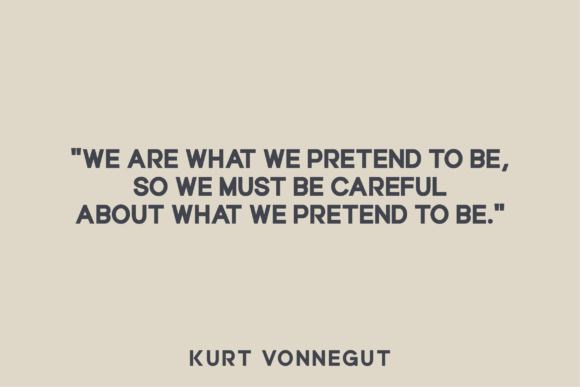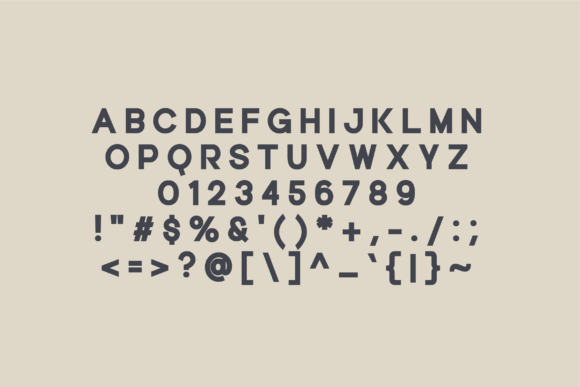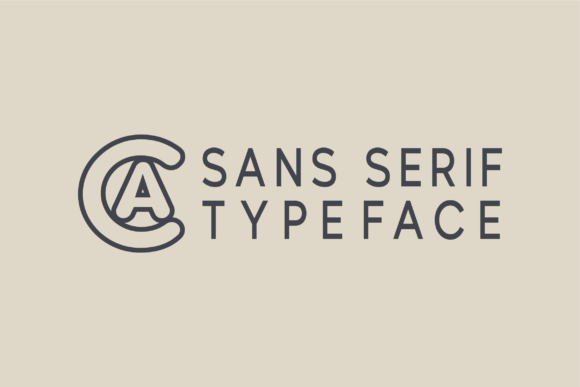
Cyrinthine Font: Elevate Your Designs with a Versatile and Modern Sans Serif
In the world of typography, a font can make or break a design. It’s the perfect blend of style, elegance, and readability that can elevate your creative projects from ordinary to extraordinary. If you’re on the hunt for a versatile, modern, and classy sans serif font, look no further than Cyrinthine. This stunning font is perfect for a wide range of applications, from logos and weddings to invitations, quotes, advertisements, print, magazines, and more.
The Cyrinthine Advantage: A Perfect Blend of Style and Versatility
Cyrinthine is more than just a font; it’s a design statement. Its clean lines, elegant curves, and modern aesthetic make it an ideal choice for designers and crafters looking to add a touch of sophistication to their work. Whether you’re creating a logo, designing a wedding invitation, or crafting a quote for social media, Cyrinthine is the perfect companion to bring your ideas to life.
Endless Possibilities with Cyrinthine
One of the standout features of Cyrinthine is its incredible versatility. This font can be used in a multitude of ways, including:
- Logos: Create a lasting impression with a Cyrinthine-powered logo that’s both modern and memorable.
- Weddings and Invitations: Add a touch of elegance to your wedding invitations, save-the-dates, and thank-you cards.
- Quotes and Social Media: Make your quotes and social media posts stand out with Cyrinthine’s clean and classy aesthetic.
- Advertisements: Grab attention and drive engagement with Cyrinthine-powered ads that exude style and sophistication.
- Print and Magazines: Elevate your print designs, from brochures to magazines, with Cyrinthine’s modern and versatile charm.
Why Choose Cyrinthine?
So, what sets Cyrinthine apart from other fonts? Here are just a few reasons why designers and crafters are falling in love with this incredible typeface:
- Modern Aesthetic: Cyrinthine boasts a sleek and contemporary design that’s perfect for projects that demand a fresh and modern look.
- High Readability: With its clear and clean lines, Cyrinthine ensures that your message is always conveyed with clarity and precision.
- Versatility: Whether you’re designing for print or digital, Cyrinthine adapts seamlessly to any medium or format.
- Elegance: Cyrinthine’s elegant curves and sophisticated style make it an ideal choice for projects that require a touch of luxury and refinement.
- Experiment with Different Weights: Cyrinthine comes in multiple weights, allowing you to experiment with different styles and tones.
- Pair it with Other Fonts: Combine Cyrinthine with other fonts to create unique and visually appealing typography.
- Customize and Adapt: Don’t be afraid to experiment with Cyrinthine’s various features, from adjusting font sizes to playing with color and texture.
Cyrinthine is more than just a font; it’s a design partner that can help you bring your creative ideas to life. With its versatility, modern aesthetic, and classy style, Cyrinthine is the perfect choice for designers and crafters looking to elevate their designs. Whether you’re working on a logo, wedding invitation, or social media post, Cyrinthine is the perfect companion to help you create something truly special. So why wait? Add Cyrinthine to your design arsenal today and discover a world of limitless creative possibilities!